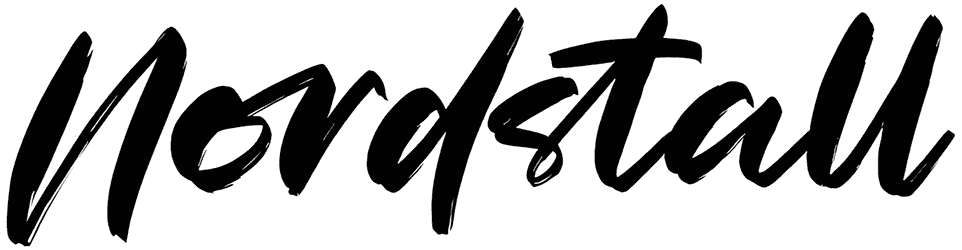
Nordstall Font
Searching for a cool and urban style to appear unique? Nordstall is one of the options that can satisfy you. This brush font has a manuscript face with bulky letterforms and will beget a fashionable aspect for your next designs, namely social media posts, album covers, banners, etcetera. Even though this script font doesn’t consist of numbers and punctuation, can still match many creative products.